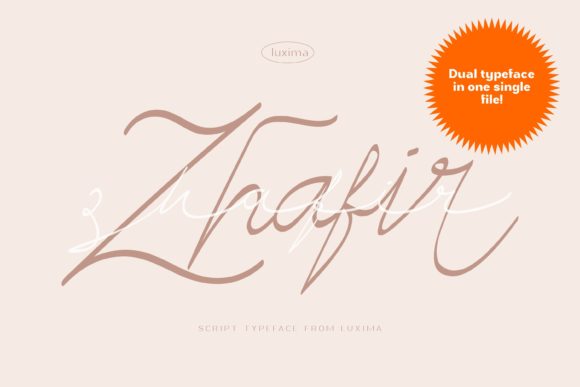
Embark on a calligraphic journey with Zhafir Script Font, a mesmerizing creation by Luxima Creative that exudes elegance and charm. This exquisite script font dances across the page with delicate strokes, intertwining graceful curves and sweeping flourishes, leaving a trail of visual enchantment.
Zhafir Script is more than just a font; it's an expression of artistry, a testament to the beauty of handwritten letters. Its thin, flowing lines evoke a sense of timeless elegance, reminiscent of classic love letters and vintage manuscripts. Whether you're designing wedding invitations, creating logos, or crafting social media graphics, Zhafir Script will add a touch of sophistication and romance to your creations.
This versatile font can effortlessly adapt to a wide range of design projects. Its delicate nature lends itself perfectly to wedding stationery, invitations, and greeting cards, adding a personal touch that will leave a lasting impression. Unveil the beauty of Zhafir Script in your branding and logo designs, creating a unique identity that speaks volumes about your brand's personality. Elevate your social media presence with captivating graphics and posts that stand out from the crowd.
Zhafir Script is a font that captivates and enchants, inviting you to explore the realm of creative possibilities. Its PUA encoding grants you effortless access to a treasure trove of glyphs and swashes, empowering you to unleash your imagination and craft designs that are truly extraordinary. Embrace the allure of Zhafir Script and let your creativity soar.
Fall in love with the versatility of Zhafir Script and unlock a world of design possibilities. From elegant wedding invitations to captivating logos and eye-catching social media graphics, this font will effortlessly elevate your designs and leave a lasting impression on your audience. Embrace the beauty of calligraphy and let Zhafir Script transform your creative vision into a tangible masterpiece.